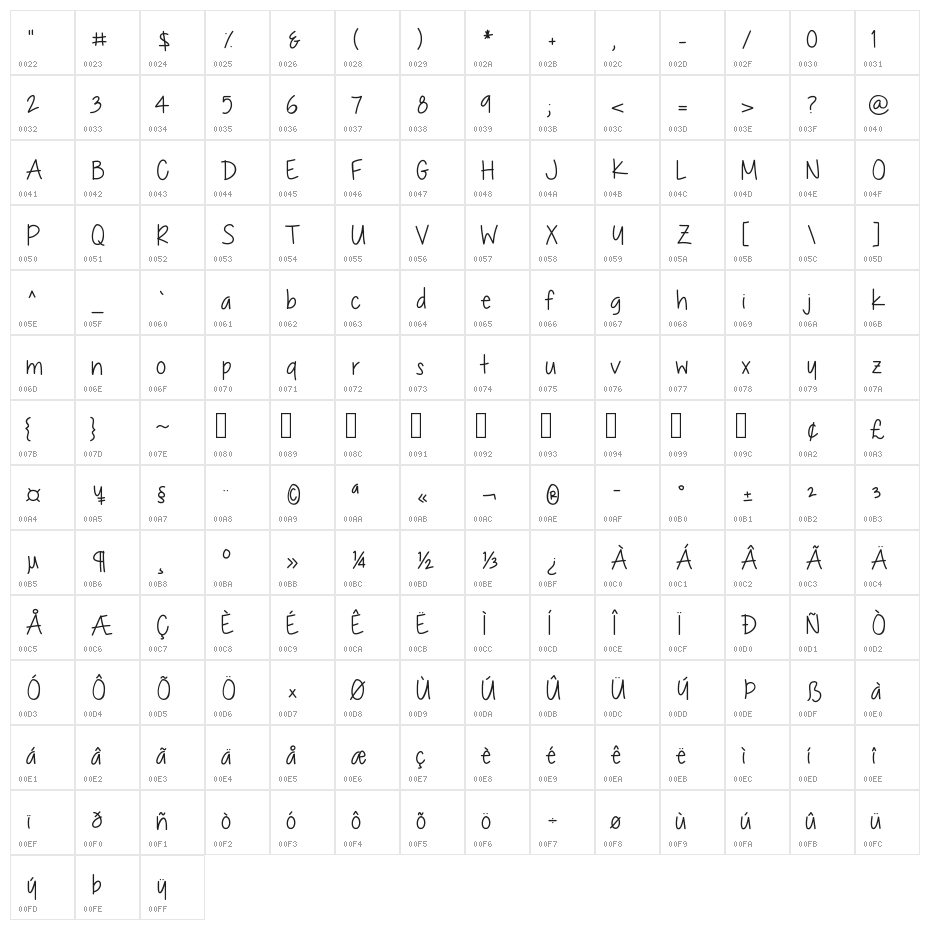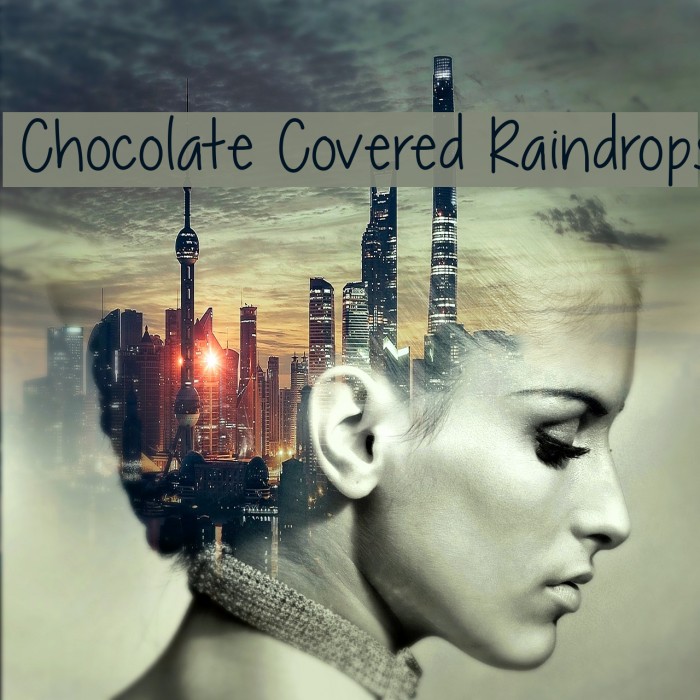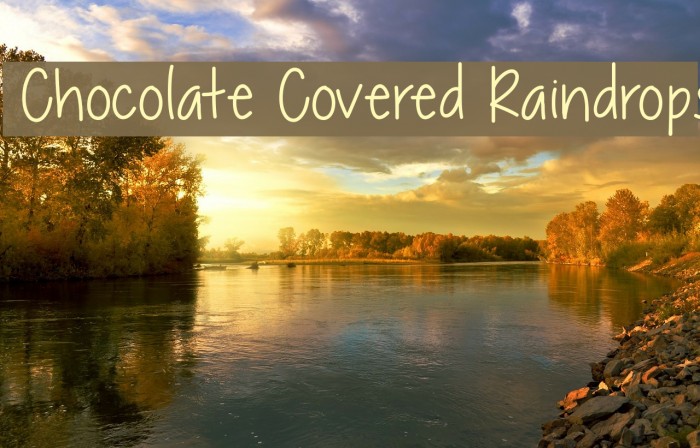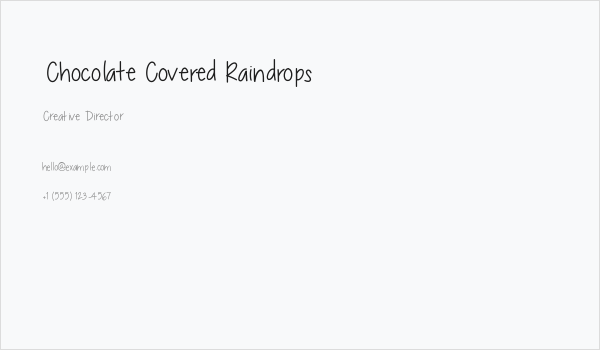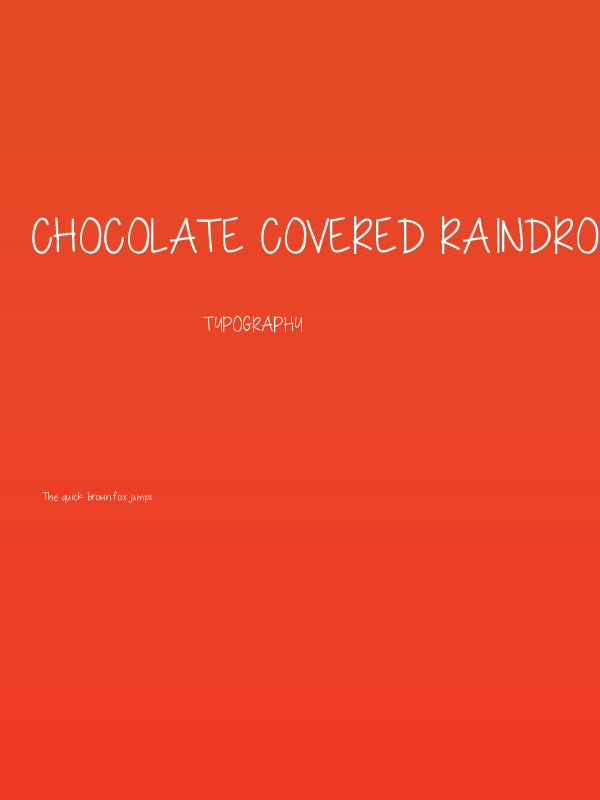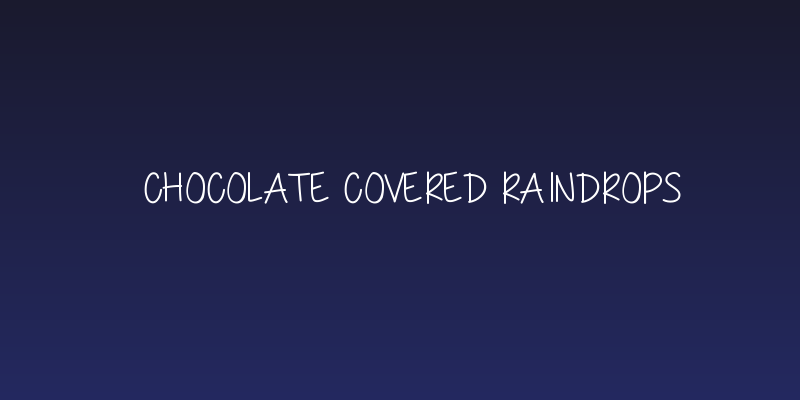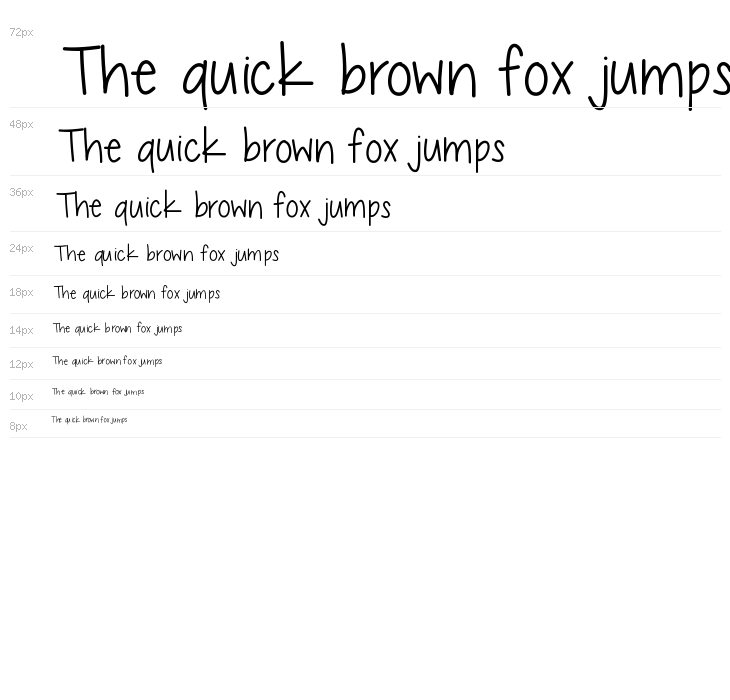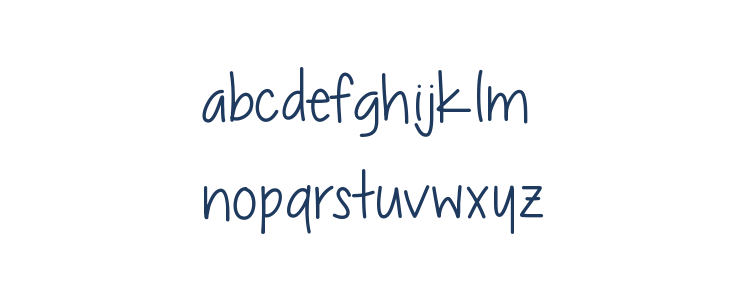
Chocolate Covered Raindrops Font
Chocolate Covered Raindrops Description
This playful and whimsical font features a handwritten style that exudes a casual and friendly vibe. The characters are slightly uneven, adding to the charm and authenticity of the handwritten look. The strokes are smooth and rounded, with a consistent thickness that maintains readability while adding a touch of personality. The font includes both uppercase and lowercase letters, numerals, and a variety of special characters, making it versatile for different design needs. Its informal style makes it perfect for projects that require a personal touch, such as greeting cards, invitations, and children's book illustrations.
| Use Case | Headlines, Logos, Informal text |
| Proposed Projects | Ideal for greeting cards, invitations, children's books, and playful branding. |